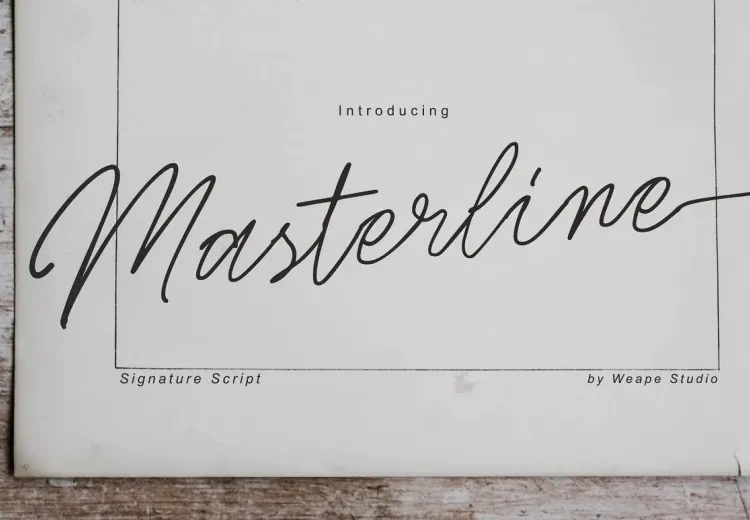
Masterline Signature Font
Masterline Signature Script Font introduces a modern and elegant calligraphy style inspired by informal handwriting. This versatile typeface is ideal for enhancing branding, logos, wedding invitations, photography projects, and promotional materials with its chic and personal touch.
Masterline offers a comprehensive set of features, including beautifully crafted uppercase and lowercase letters, numerals, punctuation, and ligatures. The lowercase letters feature unique ending swashes, creating an authentic handwritten aesthetic perfect for adding character to your designs.